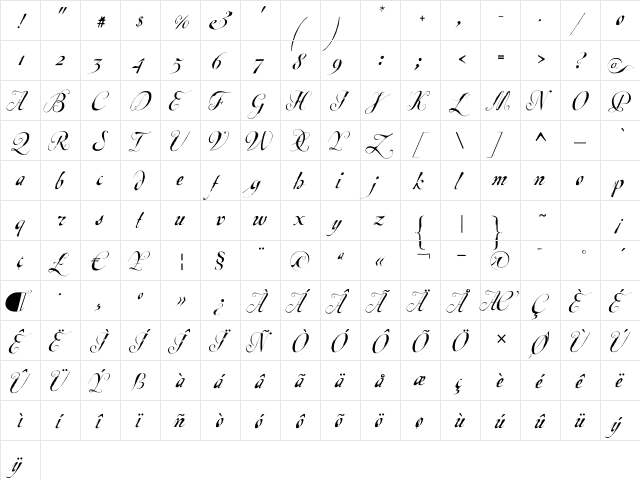
EscritaPrincipal Regular
Design Context for EscritaPrincipal Typeface
EscritaPrincipal is a composed and adaptable typeface that performs quietly and consistently across a wide range of design contexts.